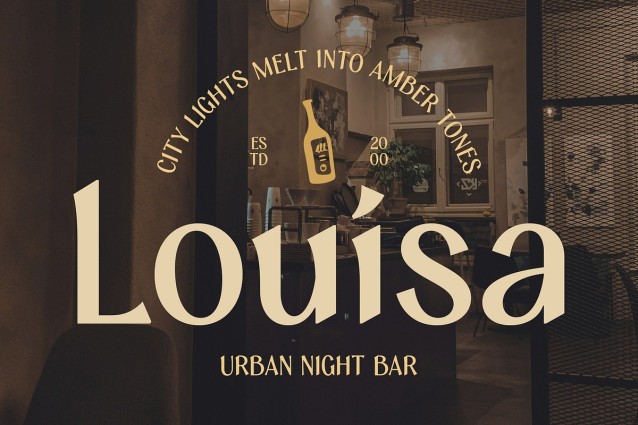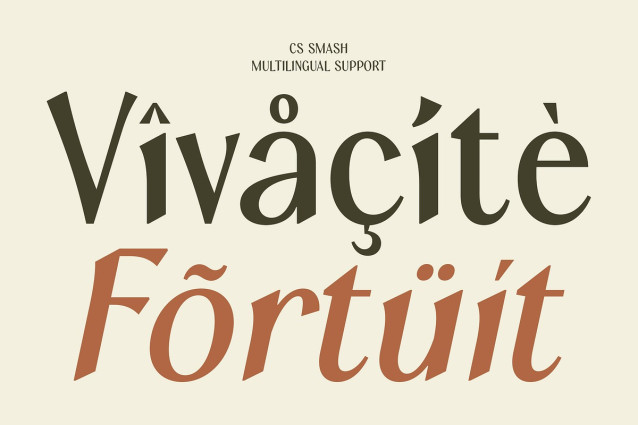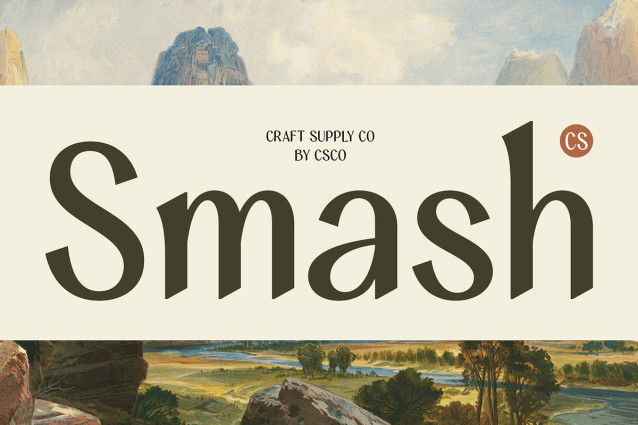
CS Smash Font
CS Smash – Classic Font is a modern display typeface that seamlessly blends contemporary design with subtle classical elements. Its clean lines and sharp edges are balanced by graceful curves and serifs, creating a harmonious fusion of modern simplicity and timeless elegance. This combination makes it ideal for projects that require both a stylish and sophisticated appearance.
Perfect for Branding and Editorial Whether you’re crafting a distinctive brand identity or designing a high-end editorial layout, CS Smash – Classic Font offers the perfect balance of boldness and refinement. Its striking presence makes it ideal for logo design, magazine covers, and sophisticated advertisements, ensuring that your message is communicated with clarity and style.
Luxurious Packaging Appeal CS Smash – Classic Font’s elegant forms and contemporary flair make it a fantastic choice for luxurious packaging designs. Its versatility and distinctive charm add a touch of sophistication, whether for premium products, high-end perfumes, or exclusive collections. Elevate your packaging with a font that exudes both tradition and modernity.
Versatile for Diverse Applications From high-end branding to premium product packaging, CS Smash – Classic Font’s versatility allows it to be used across various creative projects. Its balanced design ensures that it stands out in both large and small applications, making it a perfect choice for a wide range of creative endeavors.